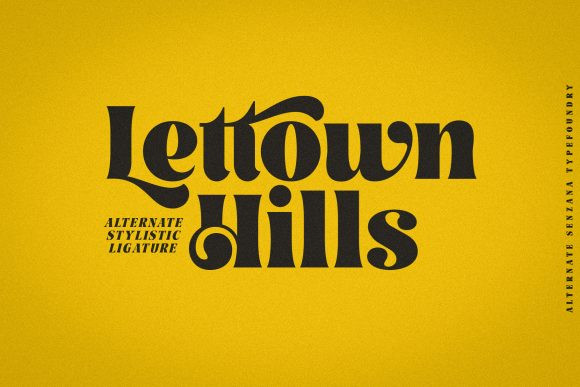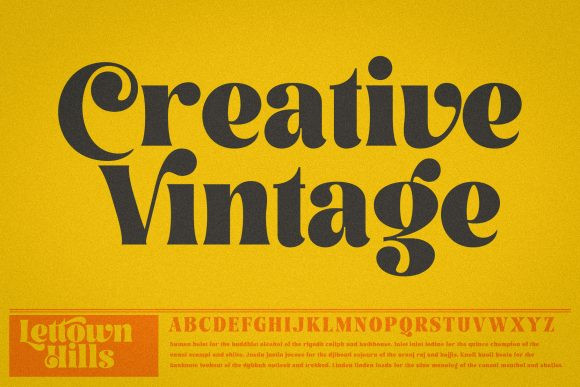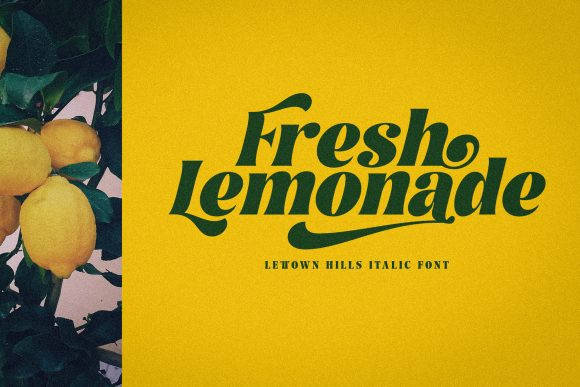
Lettown Hills Font
Lettown Hills is a thick lettered, modern and cool display font. It is defined by smooth curves and is perfect for fashion branding or editorial designs. Add it confidently to your projects, and you will love the results.